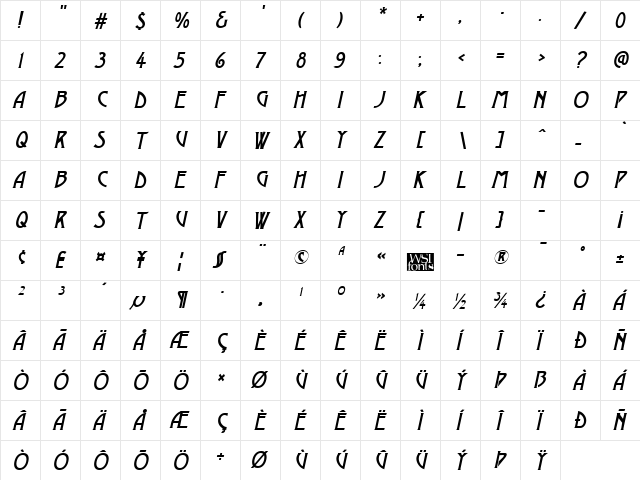
DustineSolid Italic
Design Context for DustineSolid Typeface
DustineSolid takes a measured approach to typography — its balanced proportions and neutral character make it a reliable workhorse for both digital and print work. The slanted form adds forward momentum and visual energy.